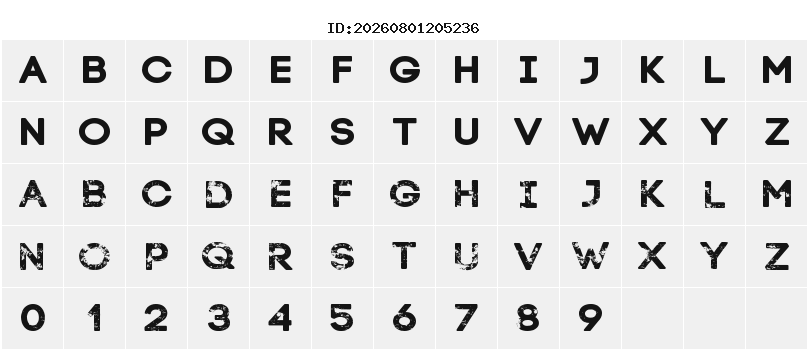
LA Street Kids Preview
• Font Name: LA Street Kids
• Designer: Fabien Delage - The Wondermaker
About LA Street Kids.ttf
LA Street Kids.ttf is a modern, elegant sans-serif font designed for ultimate readability and visual harmony. Perfect for branding, headlines, web design, and print materials.